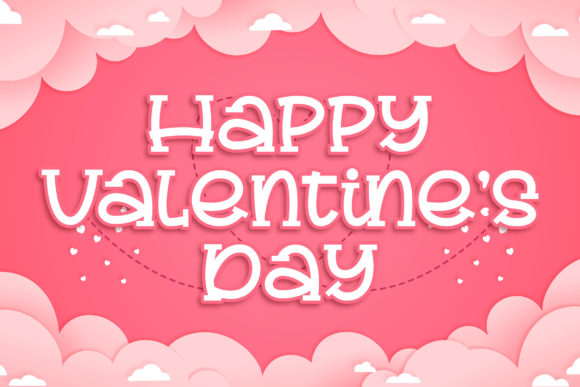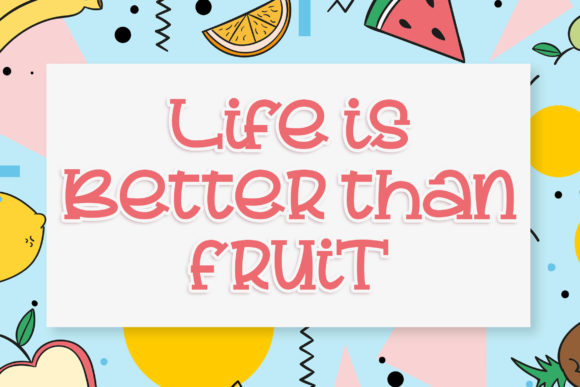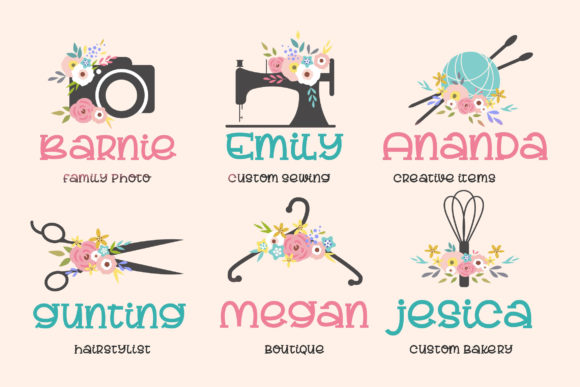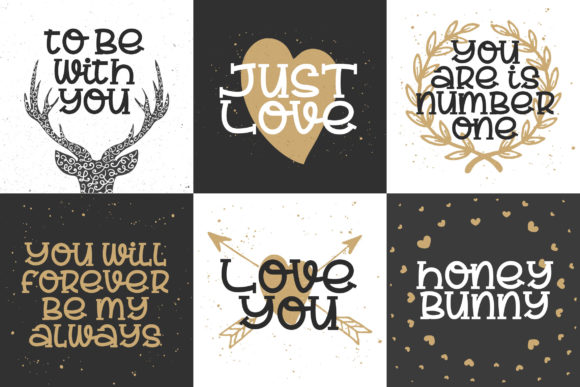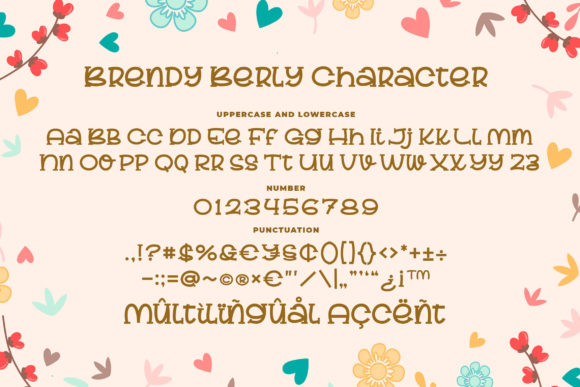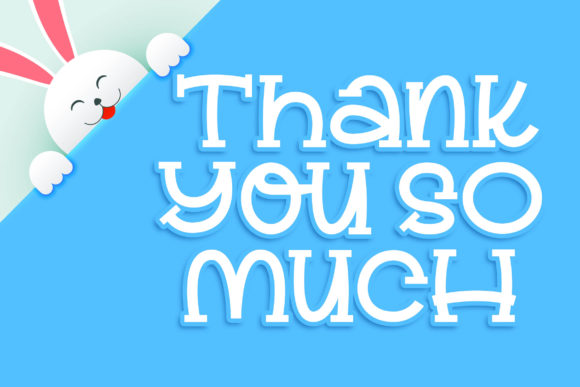
Unleashing Your Creativity with the Brendy Berly Font
Have you ever stared at a blank page, feeling the weight of an idea that refuses to take shape? The blank slate can be intimidating, but it’s also an opportunity to let your imagination run wild. It’s in these moments that we need a spark to ignite our creativity and bring our vision to life.
Enter the Brendy Berly Font, a display font that embodies the essence of fun, quirkiness, and authenticity. This enchanting font is designed to turn any creative idea into a true standout, making it a valuable asset for designers looking to add a unique touch to their work.
With the Brendy Berly Font, you’ll be able to infuse your designs with a sense of playfulness and personality, setting you apart from the crowd and elevating your work to new heights.
Brendy Berly Font Key Features
- Unique Characteristics: The font features a distinctive, hand-drawn feel with subtle flair and movement, giving it a personal and artistic touch.
Brendy Berly Font Review
I recently had the chance to work with the Brendy Berly Font and I have to say, it’s been an interesting experience. Here’s my honest review:
- Unique Character: The Brendy Berly Font has a distinctive personality that sets it apart from other fonts. It’s perfect for designers looking to add some whimsy to their projects.
- Playful Feel: The font’s playful feel makes it ideal for creative projects like children’s books, greeting cards, and social media graphics.
- High-Quality Rendition: The font is well-crafted, with clear lines and well-spaced letters that make it easy to read.
- Limited Font Sizes: The Brendy Berly Font is best used at larger font sizes, as it can become distorted at smaller sizes.
- Not Suitable for Formal Text: Due to its playful nature, the font is not suitable for formal or professional text.
Overall, I think the Brendy Berly Font is a great addition to any designer’s toolkit. It’s perfect for designers who want to add some personality to their projects without sacrificing readability. However, it’s not suitable for all types of projects, and designers should be aware of its limitations.
Tips for Getting the Most Out of Brendy Berly Font
Use the Brendy Berly Font for creative and playful projects, such as social media graphics, invitations, and children’s books.
Experiment with different font sizes and styles to add visual interest to your projects.
Combine the Brendy Berly Font with other creative elements, such as graphics and illustrations, to create unique and eye-catching designs.